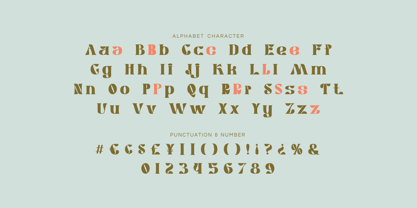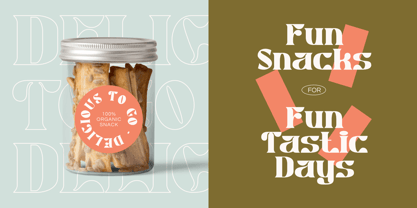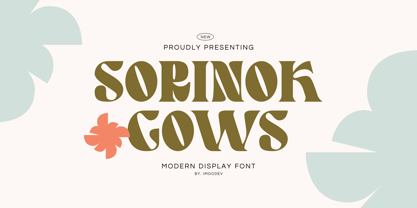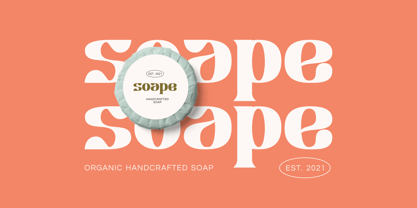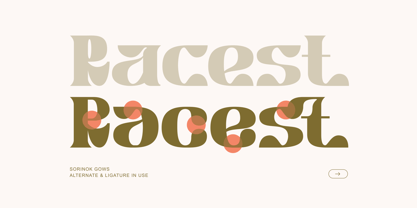
Sorinok Gows
by Imoodev
The Sorinok Gows Font Family was designed by Aulia Savira Putri and published by Imoodev. Sorinok Gows contains 1 styles. More about this family
Sorinok Gows is a modern display font marked by chunky serifs, and asymmetric cutouts that blends retro flair with a playful, organic twist. Sorinok Gows suitable for headline, packaging design, logo, product labels, greeting card, boutique signage, etc.
Designers: Aulia Savira Putri
Foundry: Imoodev